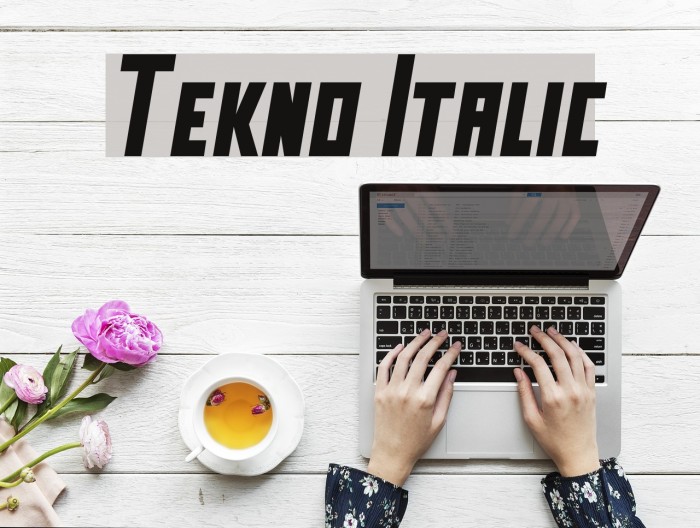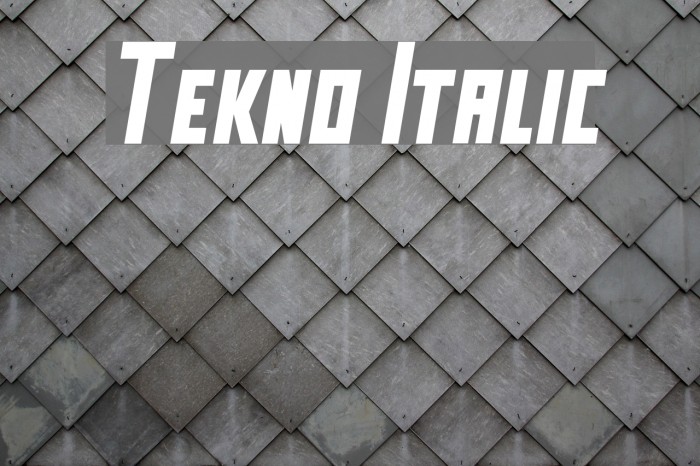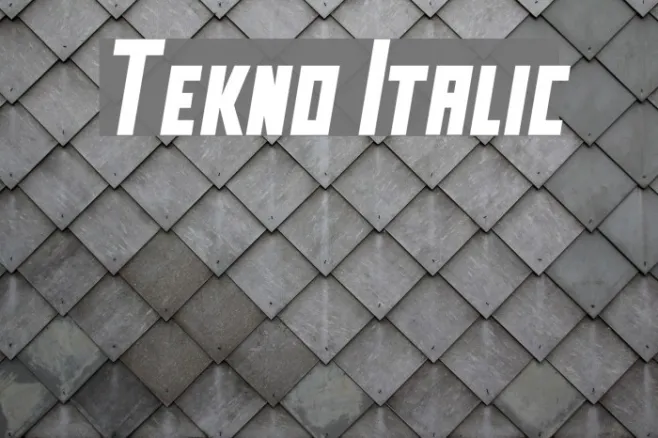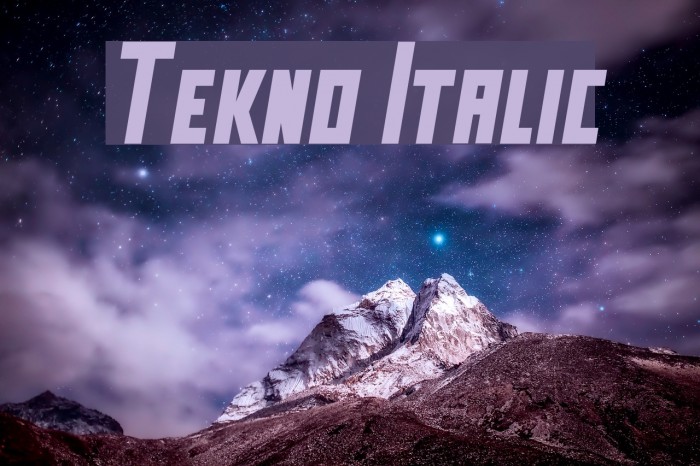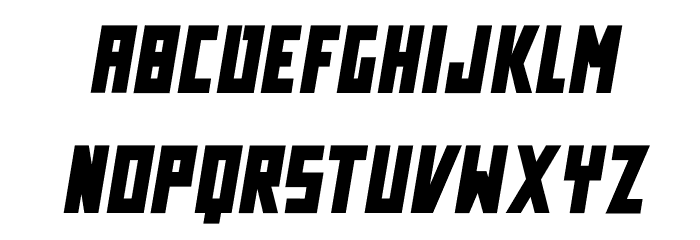
Tekno Italic Font
Tekno Italic Description
This font features a bold, angular design with a futuristic and dynamic appearance. The characters are sharply defined with a consistent slant, giving an italicized effect that enhances its modern look. The uppercase letters are particularly striking, with a geometric style that suggests movement and speed. The lowercase letters maintain the same angular aesthetic, ensuring uniformity across the typeface. The numbers and special characters are designed to match the overall theme, making this font suitable for projects that require a strong, impactful visual presence.
Proposed ProjectsIdeal for technology branding, video game titles, sci-fi movie posters, and modern advertising campaigns.